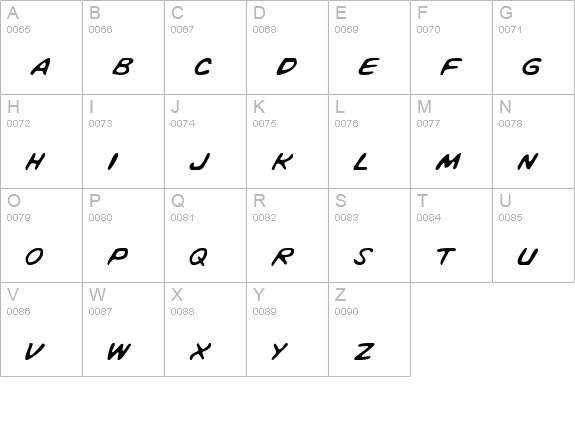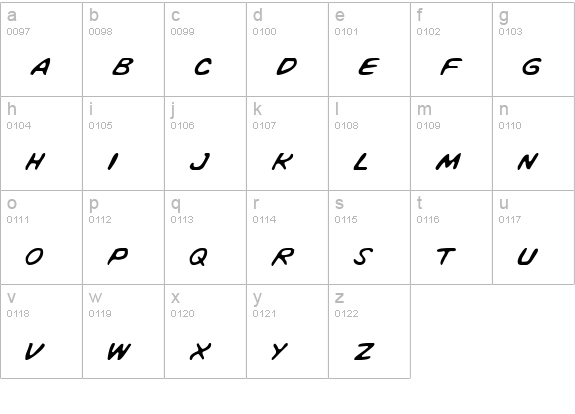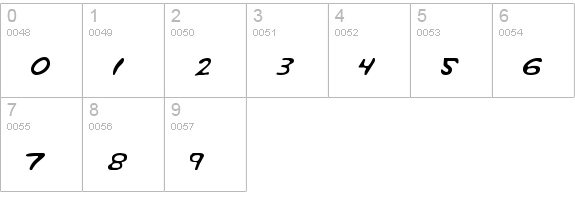
Vigilante Notes Light Font Details
Vigilante Notes Light is a refined, elegant variant in the Vigilante typeface family \xE2\x80\x94 well suited to elegant body text, refined sub-headings, and luxury branding.
Introducing Vigilante Notes Light font - a bold and charismatic typeface that exudes a sense of strength and determination. Designed with meticulous attention to detail, this font is perfect for adding a touch of edginess and rebellion to any project. Vigilante Notes Light font features sleek lines and sharp edges, creating a modern and contemporary look that demands attention. Its unique and distinctive letterforms bring a sense of individuality and uniqueness to your designs, making them stand out from the crowd. The versatility of Vigilante Notes Light font allows it to be used in various design projects, from headlines and logos to posters and packaging. Its legibility and readability ensure that your message is conveyed clearly and effectively. But what makes Vigilante Notes Light font even more special is that it is free! Yes, you read that right. This remarkable font is freely available to download at FontsMarket.com, offering you the opportunity to enhance your designs without breaking the bank. So why wait? Download Vigilante Notes Light font today and unleash your creativity with this powerful and captivating typeface. Whether you're working on a personal project or a professional endeavor, this font is bound to leave a lasting impression. Don't miss out on this incredible opportunity to elevate your designs to new heights. Get Vigilante Notes Light font now, and let your imagination run wild.